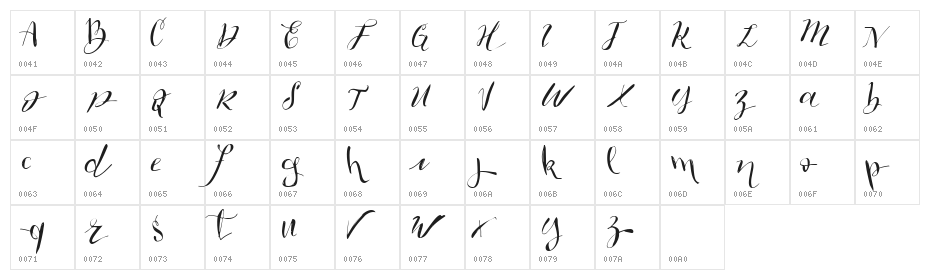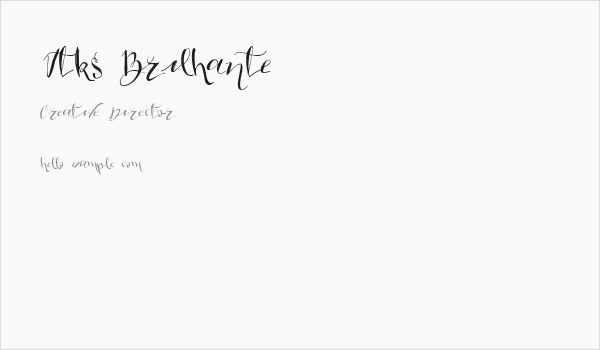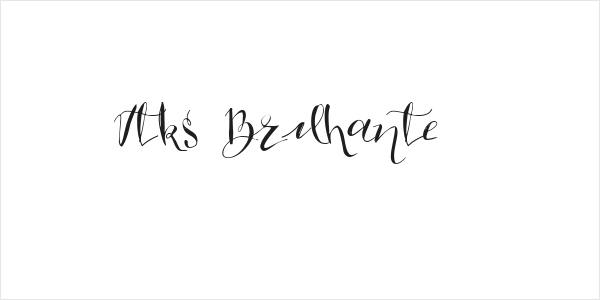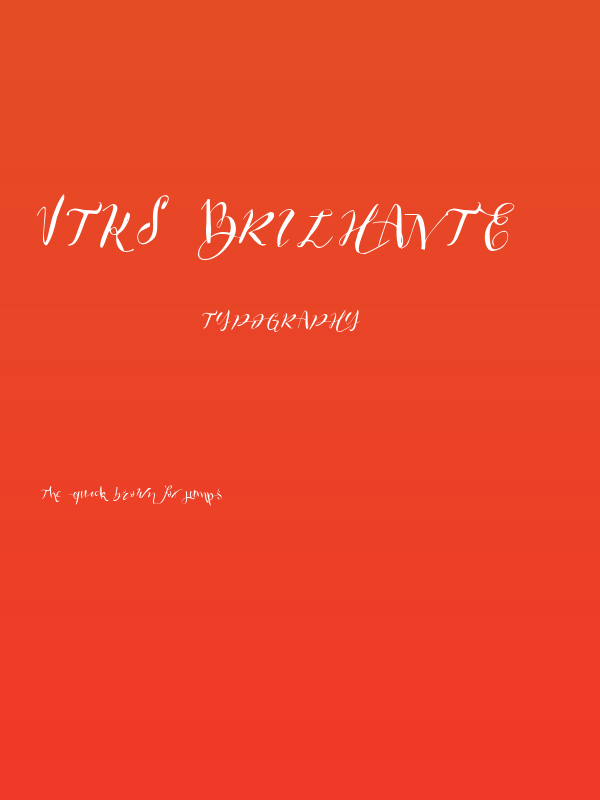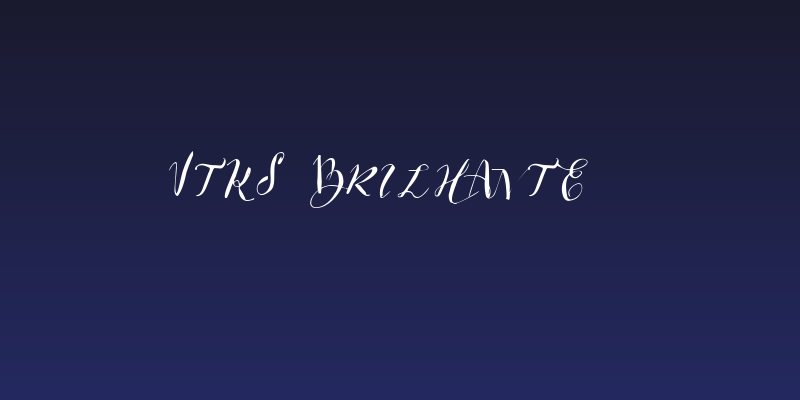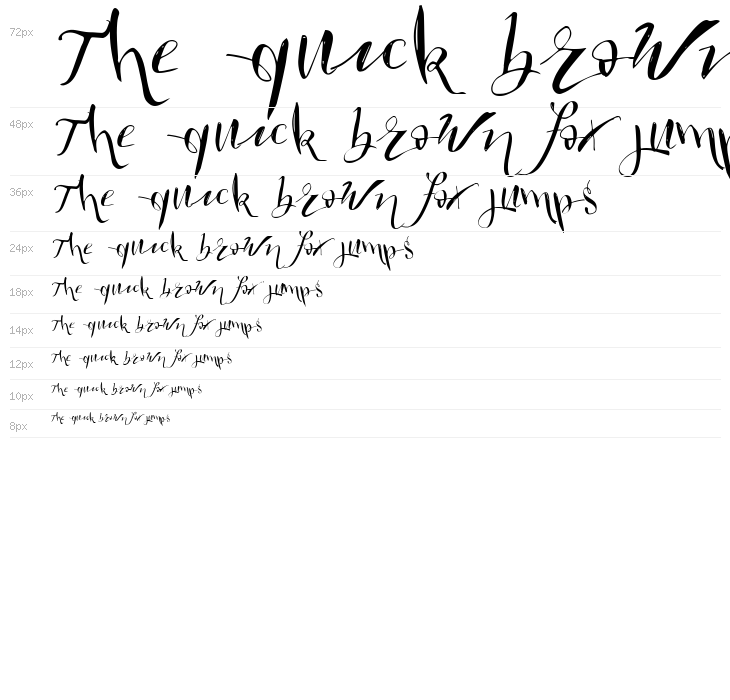
Vtks Brilhante 2 Font
Vtks Brilhante 2 Description
This font exhibits a dynamic and flowing script style, characterized by its elegant and artistic letterforms. The strokes are fluid and expressive, with a combination of thick and thin lines that create a sense of movement and grace. The uppercase letters are bold and prominent, while the lowercase letters maintain a more delicate and intricate appearance. This font's unique style is further enhanced by its decorative flourishes and swashes, adding a touch of sophistication and flair. The overall design is both modern and timeless, making it suitable for a variety of creative applications.